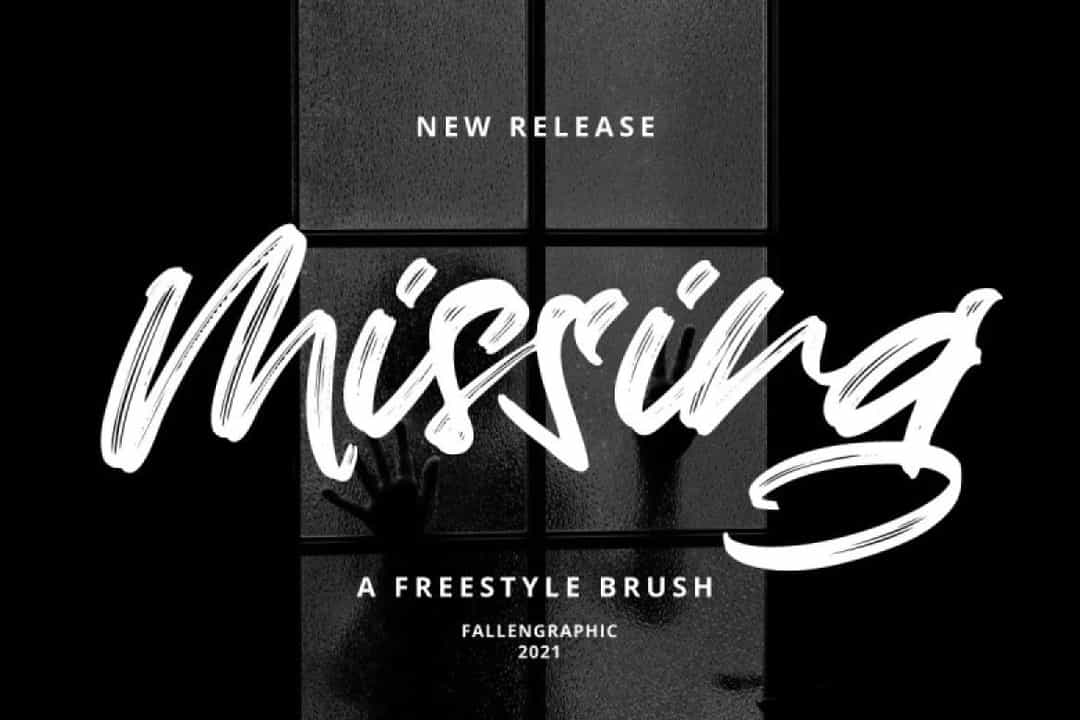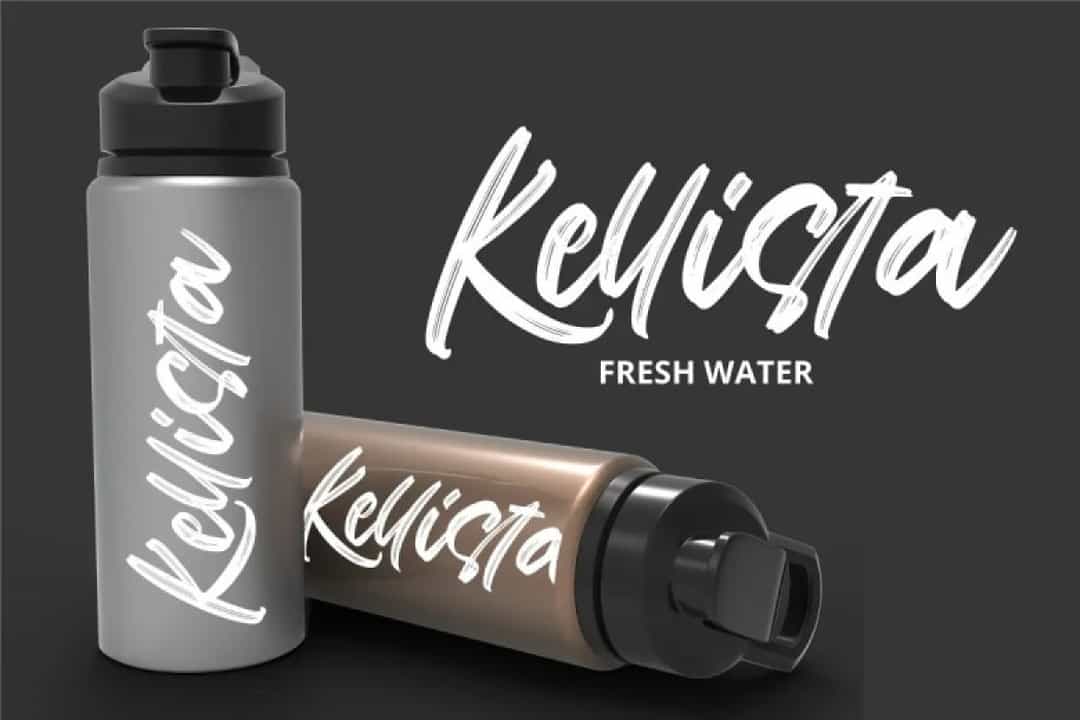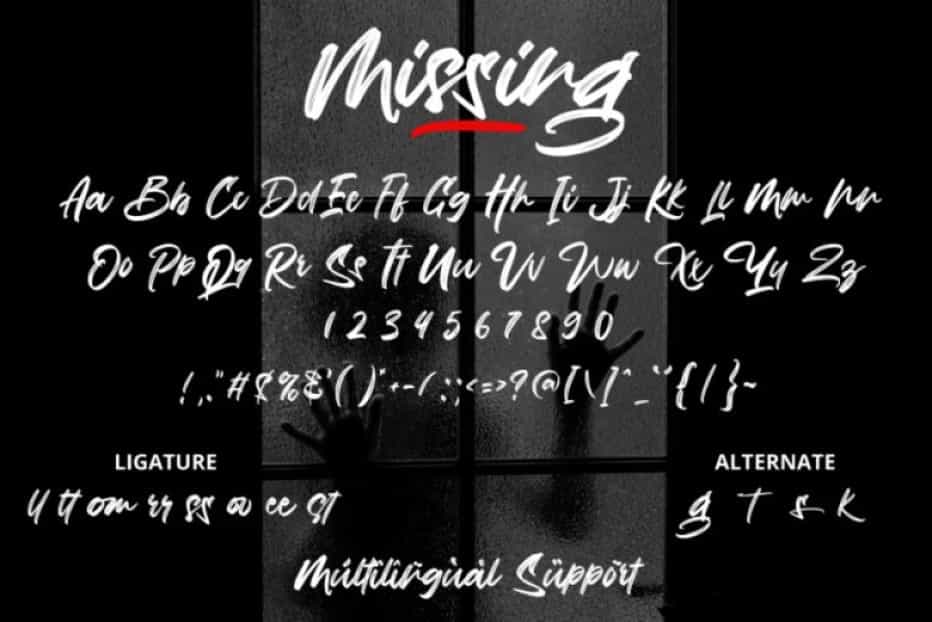
Missing is an exquisite brush font created through naturally handwritten letters. Suitable for branding projects, quotes or more; I hope you love this font as much as I do!!